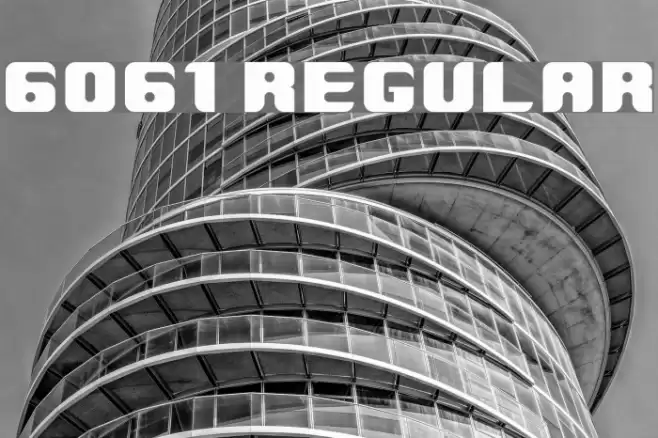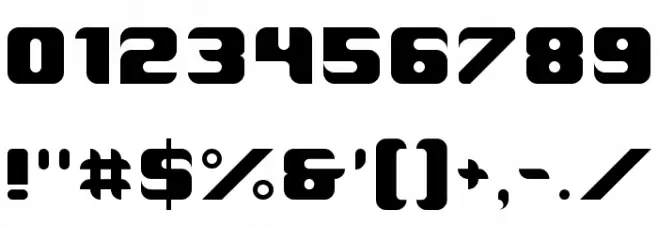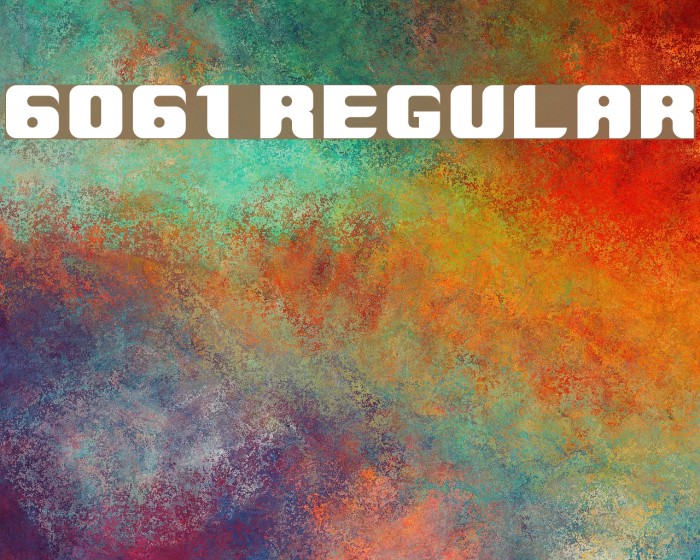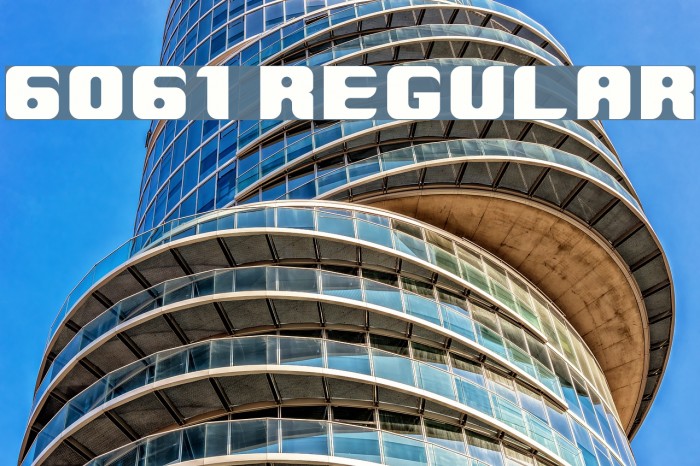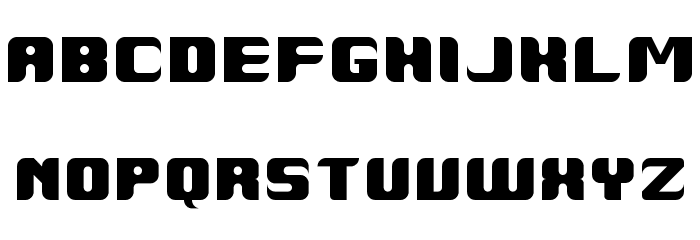
6061 Regular Font
6061 Regular Description
This font features a bold and robust design with a distinctly modern and industrial aesthetic. The characters are uniformly thick, providing a strong visual impact. The rounded edges soften the otherwise blocky appearance, creating a unique blend of strength and approachability. The uppercase and lowercase letters maintain a consistent style, with the uppercase being slightly more pronounced. Numbers and special characters follow the same design principles, ensuring a cohesive look across all glyphs. This font is highly legible and makes a statement with its bold presence.
A bold, modern font with a strong industrial aesthetic and rounded edges from Uncategorized fonts.